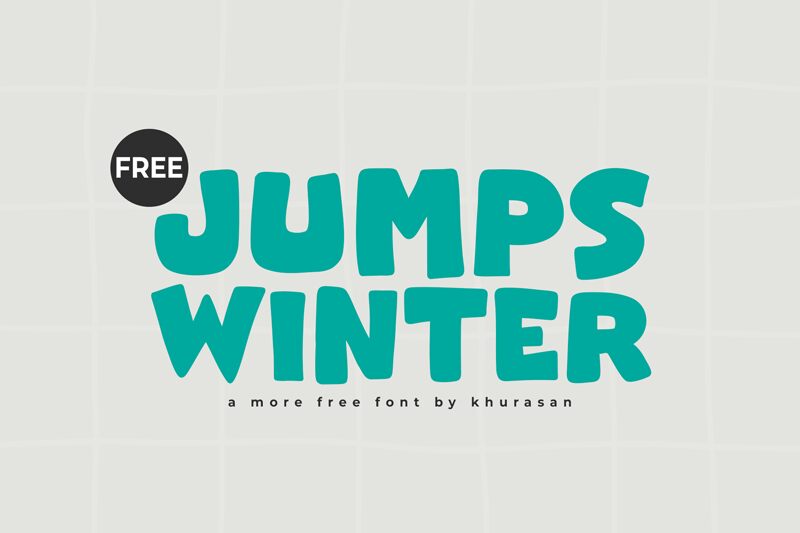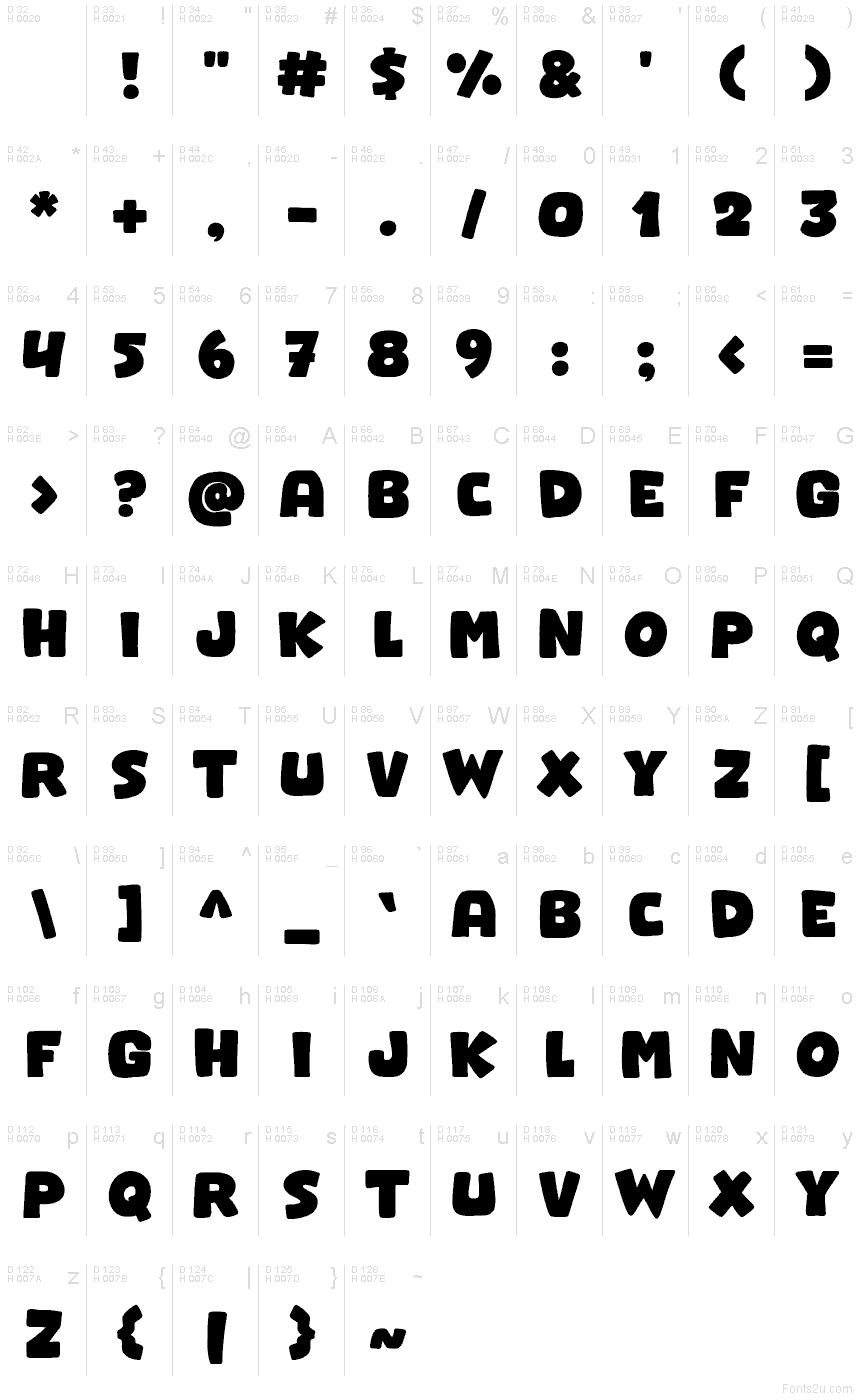
Jumps Winter
Jumps Winter font by Khurasan is a free cartoon display typeface that feels like bold letters cut from soft foam and dusted with snow. Its chunky shapes, rounded corners, and slightly uneven rhythm give every word a bouncy, hand-crafted charm, as if it’s been drawn with a fat marker on frosty glass. The solid, inky fills keep it readable even at a distance, while the playful curves bring out a cozy, winter‑break energy.
Using Jumps Winter, you can instantly warm up kids’ book covers, holiday cards, classroom posters, party invitations, YouTube thumbnails, and playful branding for snacks or toys. This free font shines in big, loud titles, then you can pair it with a clean sans serif for smaller supporting text. Keep it large, with generous spacing, to let those chunky cartoon shapes really jump off the page.